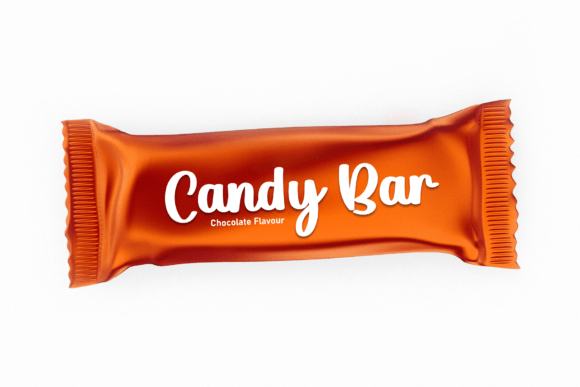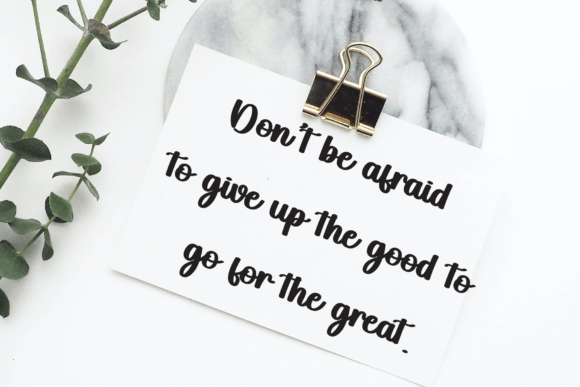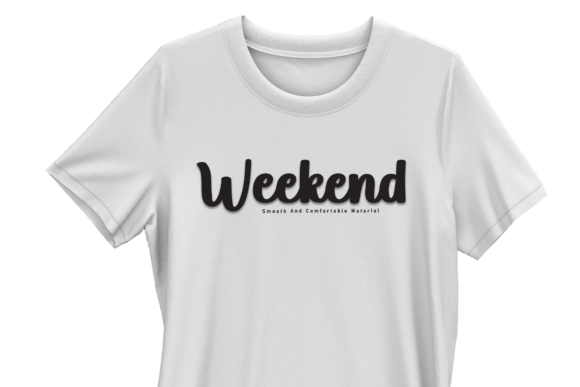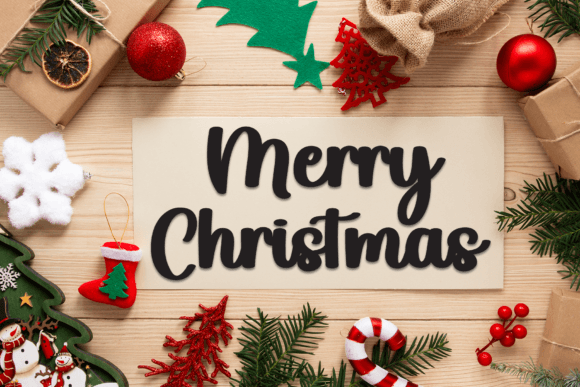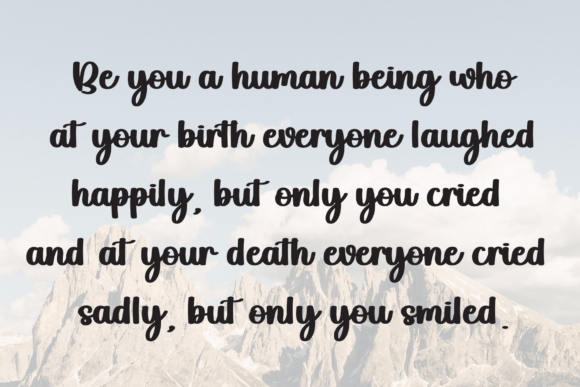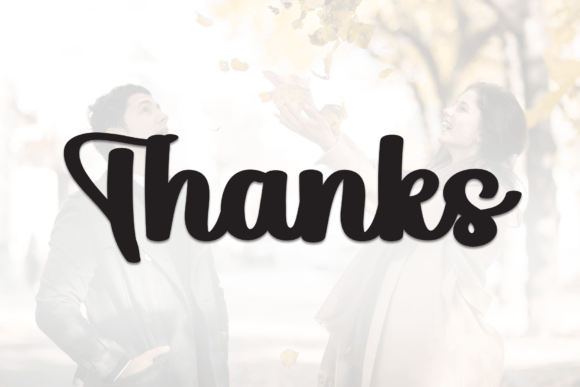
Introducing Fall in Love Font: The Perfect Blend of Whimsy and Charm
Are you a designer or crafter looking for a font that can add a touch of magic to your projects? Look no further than Fall in Love Font, an enchanting and approachable handwritten display font that’s sure to capture your heart. With its captivating sweetness and friendly charm, this font is perfect for crafting stunning wedding invitations, unique greeting cards, and infusing any design project with a touch of whimsy and fun!
The Story Behind Fall in Love Font
Fall in Love Font is a carefully crafted font that’s designed to evoke a sense of playfulness and romance. Its delightful, playful vibe makes it perfect for designers and crafters who want to add a personal touch to their projects. Whether you’re creating wedding invitations, greeting cards, or social media graphics, this font is sure to bring a smile to your audience’s faces.
What Makes Fall in Love Font So Special?
So, what sets Fall in Love Font apart from other fonts? Here are just a few features that make it a standout:
- Handwritten with love: Fall in Love Font is a handwritten display font that’s been carefully crafted to evoke a sense of warmth and personality.
- Captivating sweetness: This font has a sweet, charming quality that’s perfect for creating romantic and whimsical designs.
- Playful vibe: With its playful, bouncy feel, Fall in Love Font is perfect for adding a touch of fun and whimsy to your designs.
- Approachable and friendly: This font has a friendly, approachable quality that’s perfect for creating designs that feel welcoming and inclusive.
Using Fall in Love Font in Your Designs
Fall in Love Font is incredibly versatile, making it perfect for a wide range of design projects. Here are just a few ideas to get you started:
- Wedding invitations: Create stunning wedding invitations that set the tone for a romantic and unforgettable celebration.
- Greeting cards: Design unique and heartfelt greeting cards that will make your friends and family feel special.
- Social media graphics: Add a touch of whimsy and fun to your social media graphics, and watch your engagement soar!
- Branding and packaging: Use Fall in Love Font to create custom branding and packaging that reflects your brand’s personality and style.
Tips for Getting the Most Out of Fall in Love Font
To get the most out of Fall in Love Font, here are a few tips to keep in mind:
- Experiment with different sizes and colors: Fall in Love Font looks great in a variety of sizes and colors, so don’t be afraid to experiment and find the perfect combination for your design.
- Pair it with other fonts: Fall in Love Font pairs beautifully with other fonts, so try combining it with a bold or serif font to create visual interest.
- Use it to add a personal touch: Fall in Love Font is perfect for adding a personal touch to your designs. Use it to create custom illustrations, graphics, or text elements that reflect your brand’s personality.
Fall in Love Font is a truly special font that’s sure to capture your heart. With its captivating sweetness, playful vibe, and approachable charm, it’s perfect for designers and crafters who want to add a touch of magic to their projects. Whether you’re creating wedding invitations, greeting cards, or social media graphics, this font is sure to bring a smile to your audience’s faces. So why wait? Fall in love with Fall in Love Font today, and start creating designs that are as unique and special as you are!